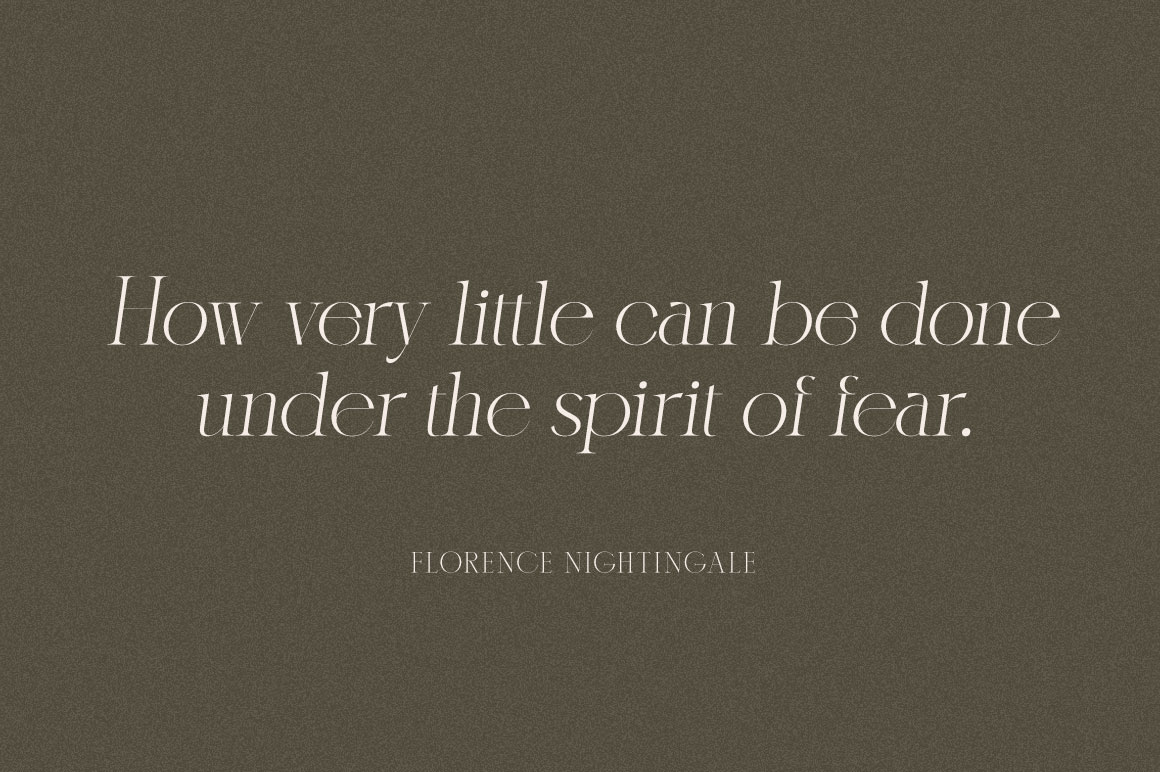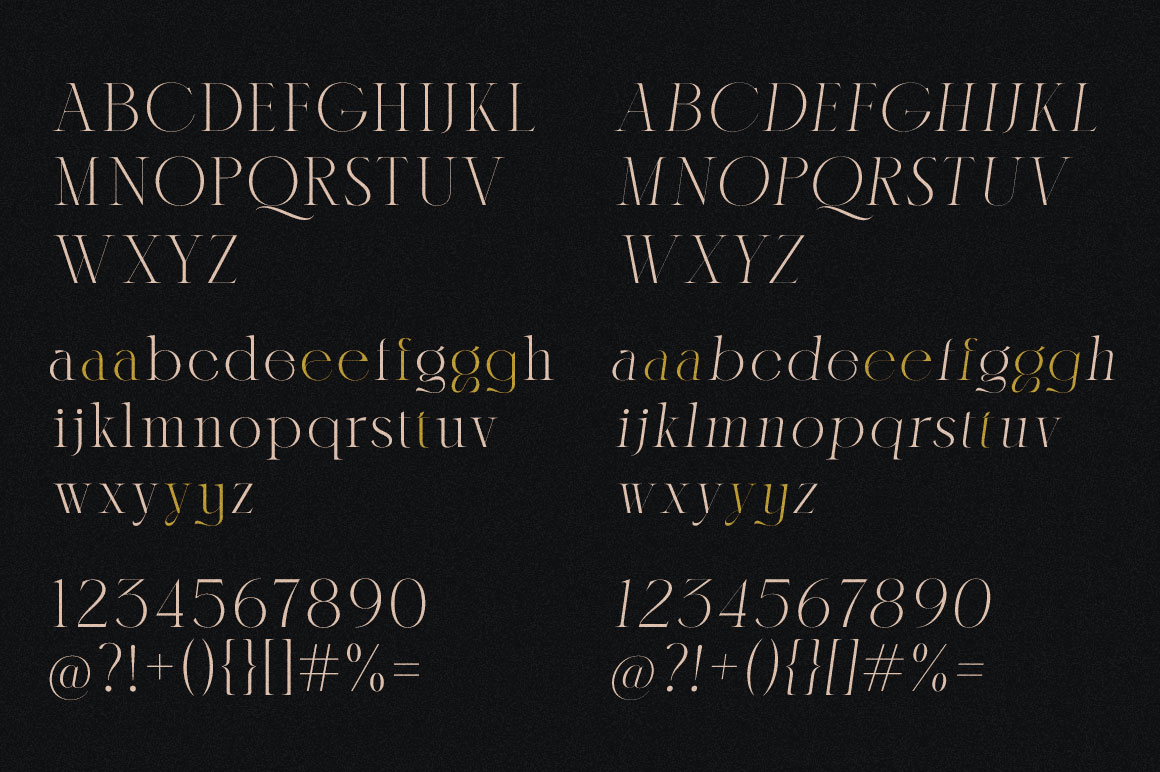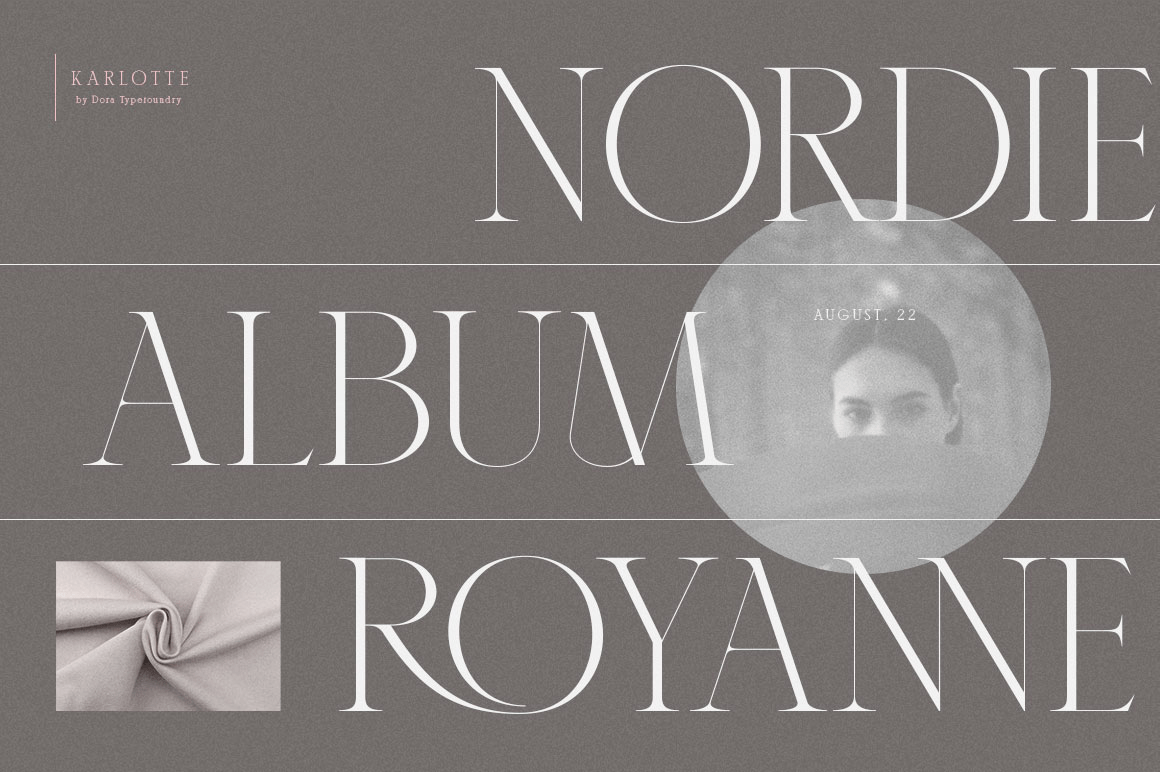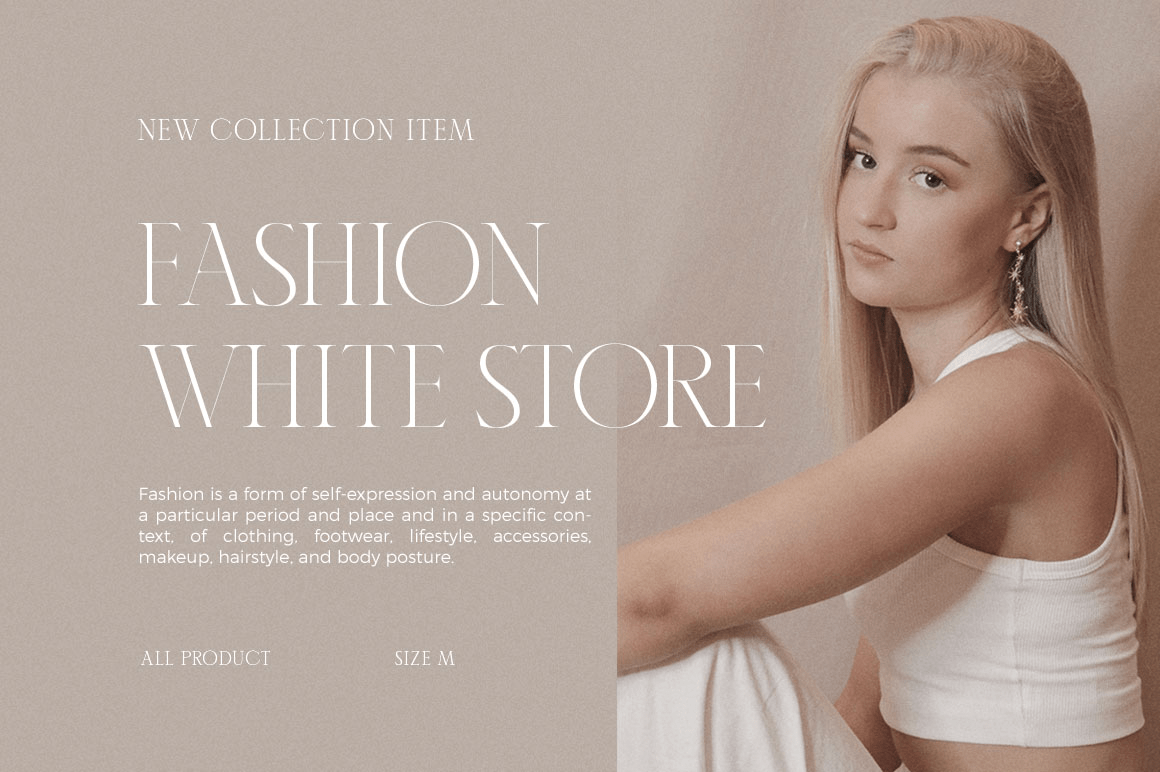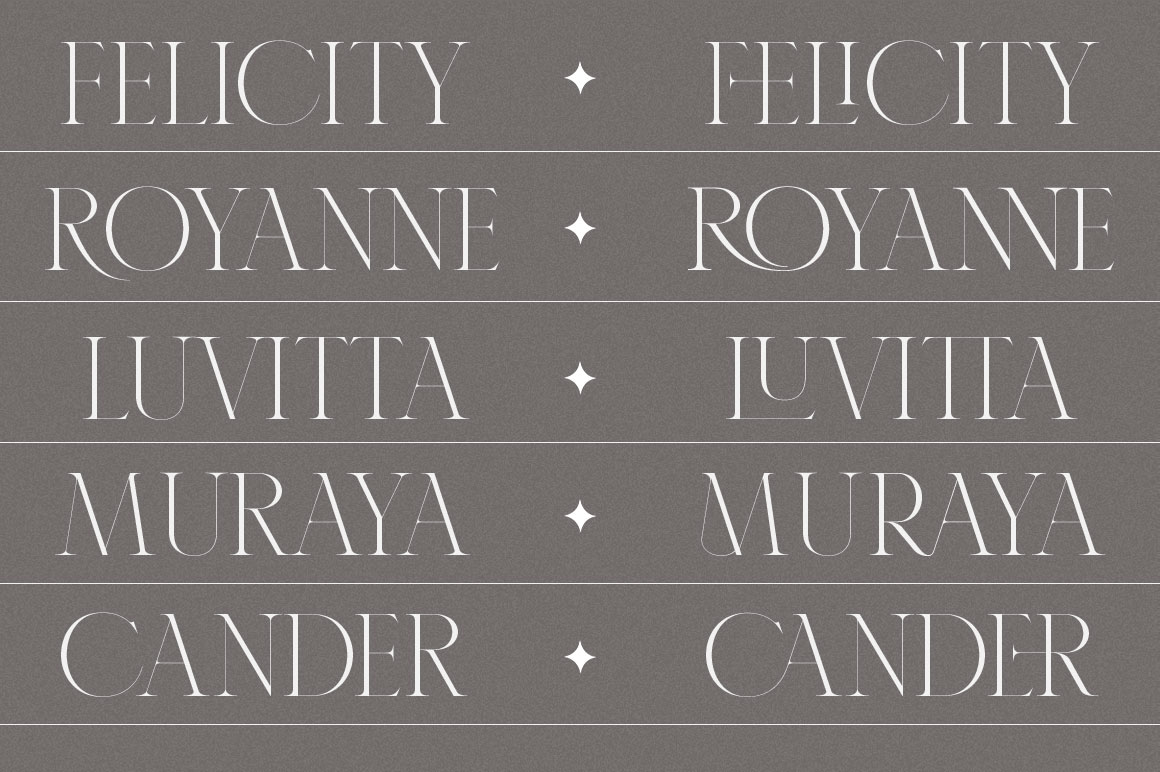
Introducing, Karlotte is an elegant modern serif font giving a romantic feel to every curve. This typeface has been carefully crafted to ensure premium quality and a luxurious feel. With 46 ligatures included, it is a great help in creating the title…